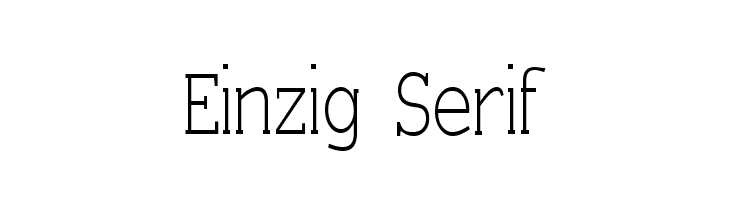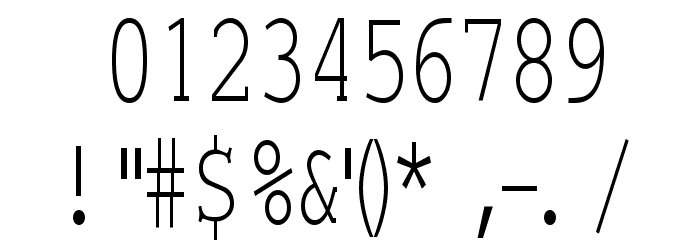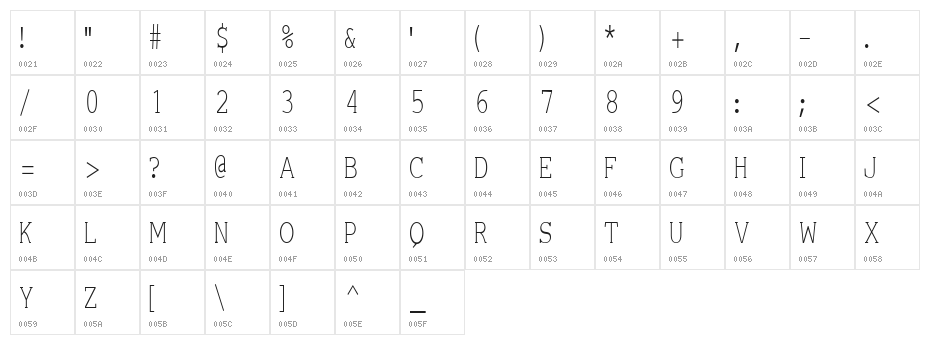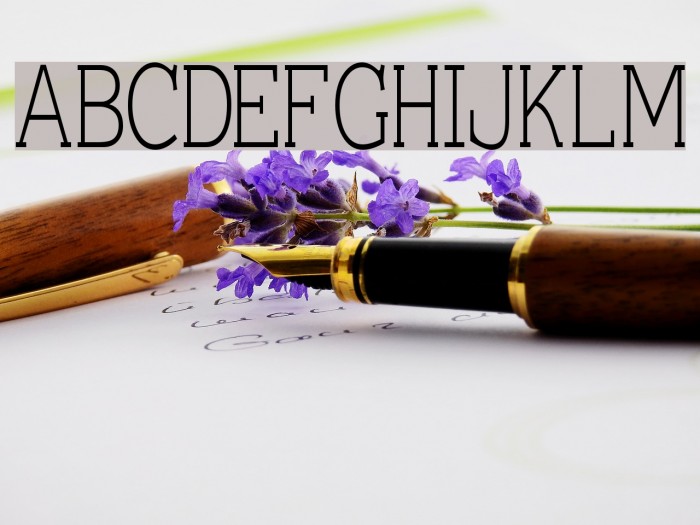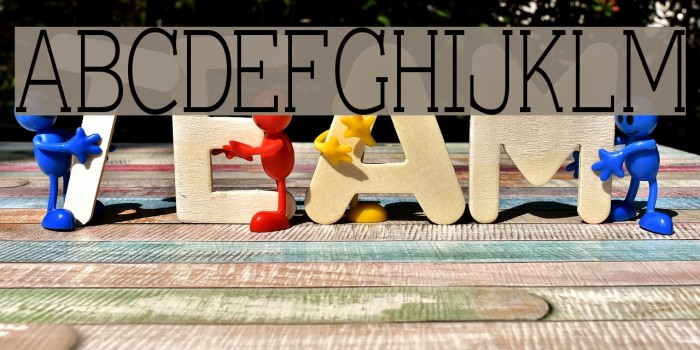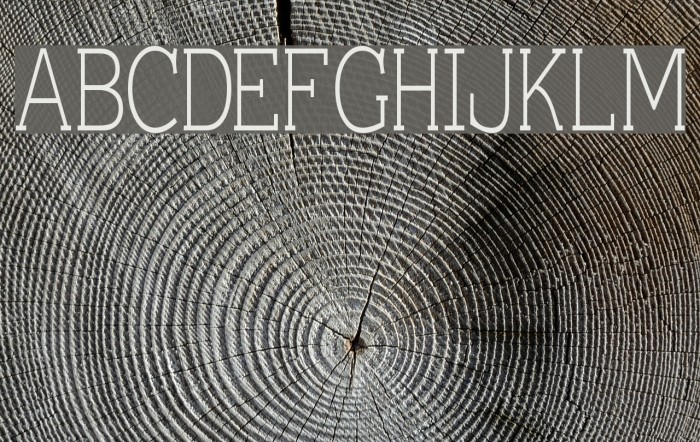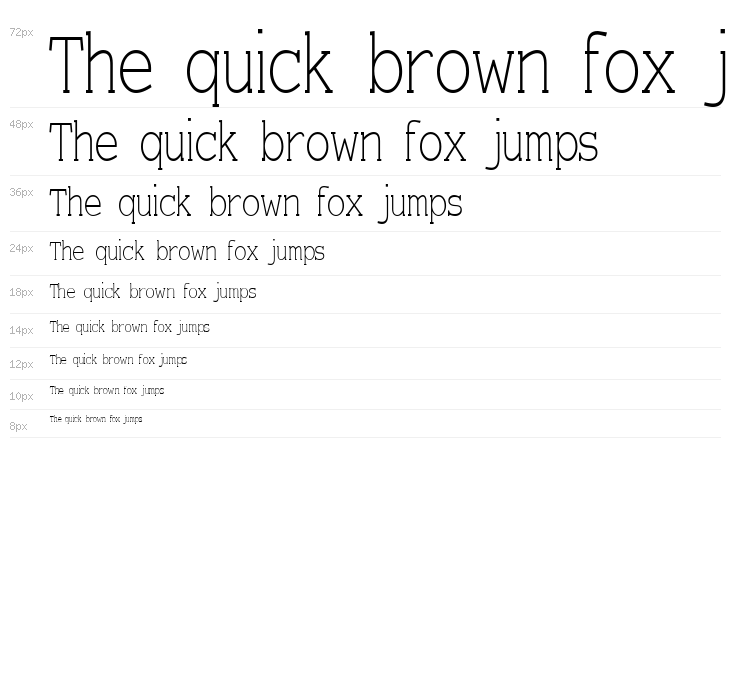
Einzig Serif Font
Einzig Serif Description
This font exhibits a clean and modern serif style, characterized by its thin strokes and elegant serifs. The uppercase letters are tall and slightly condensed, providing a sophisticated appearance. The lowercase letters maintain a consistent height, contributing to a balanced and harmonious look. The numerals are clear and easy to read, with a uniform width that complements the overall design. Special characters are distinct and well-integrated, ensuring versatility in various applications. The font's refined aesthetic makes it suitable for both digital and print media, offering a timeless appeal.